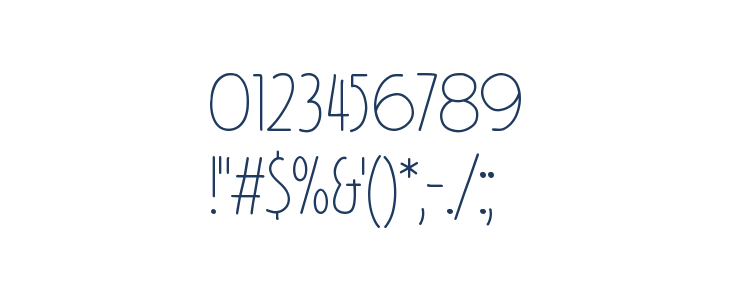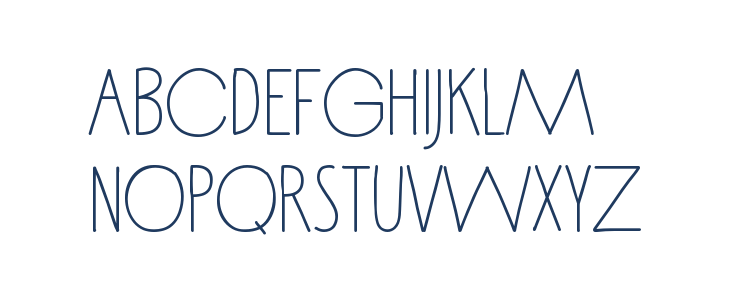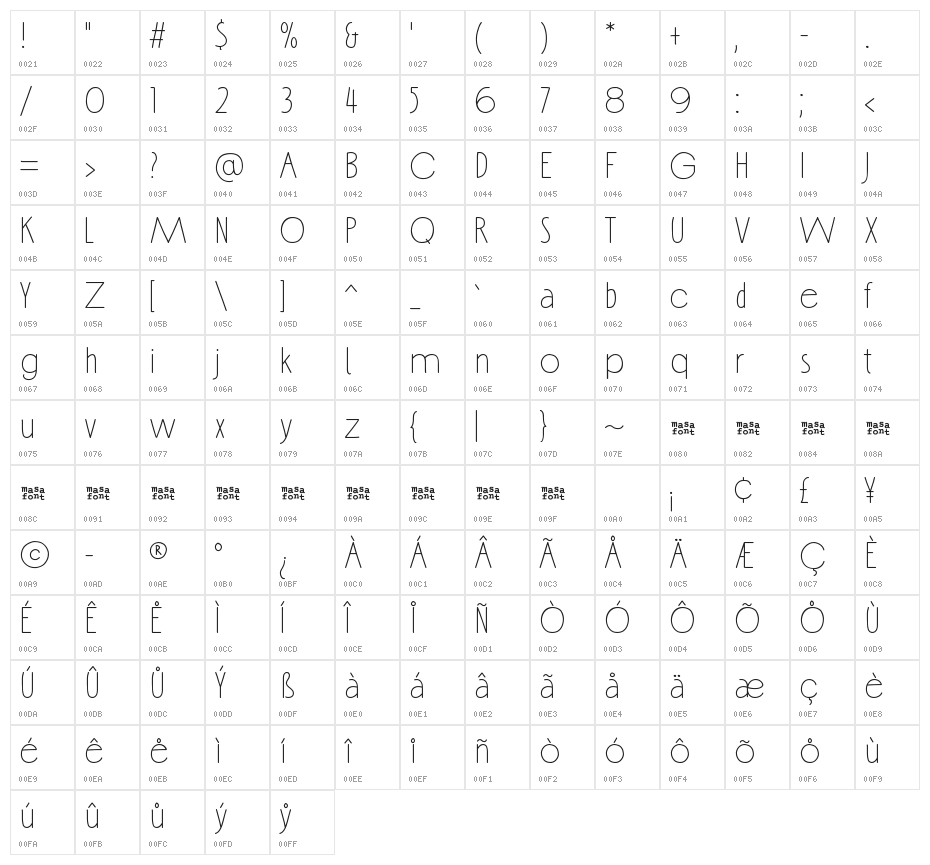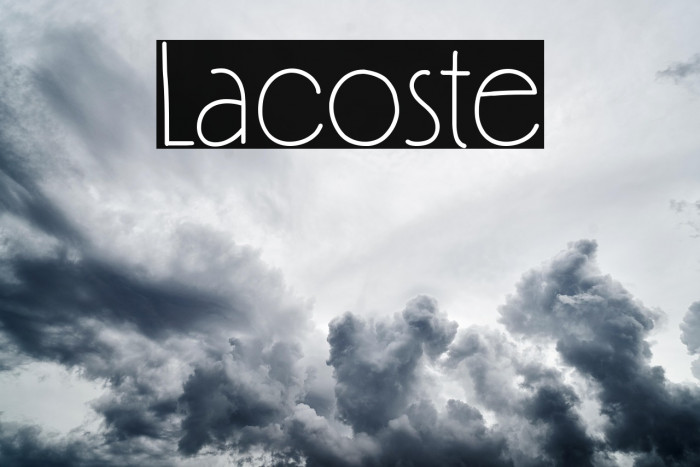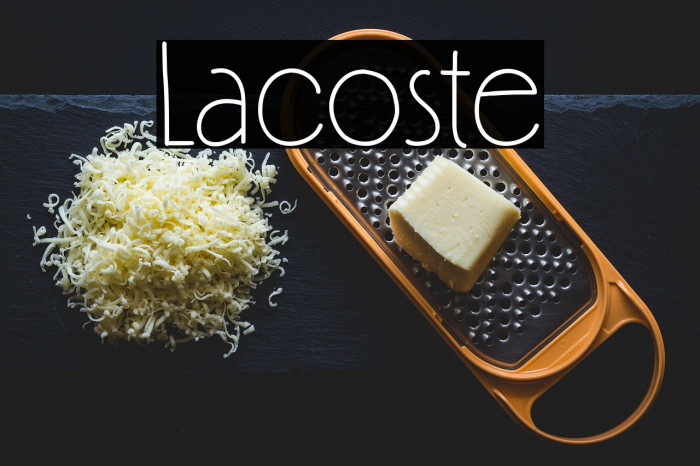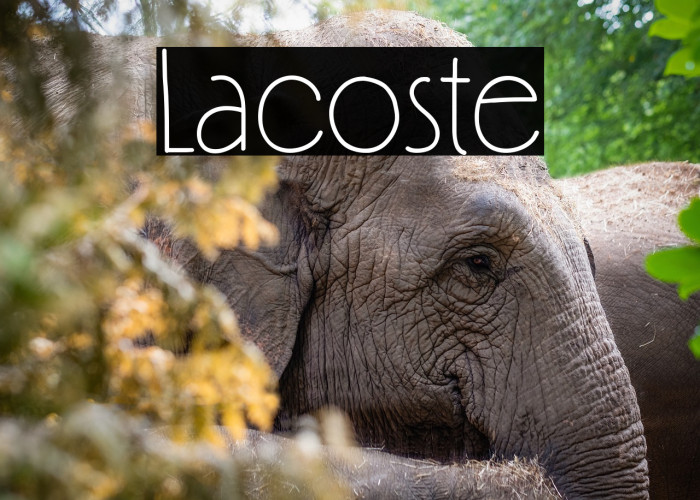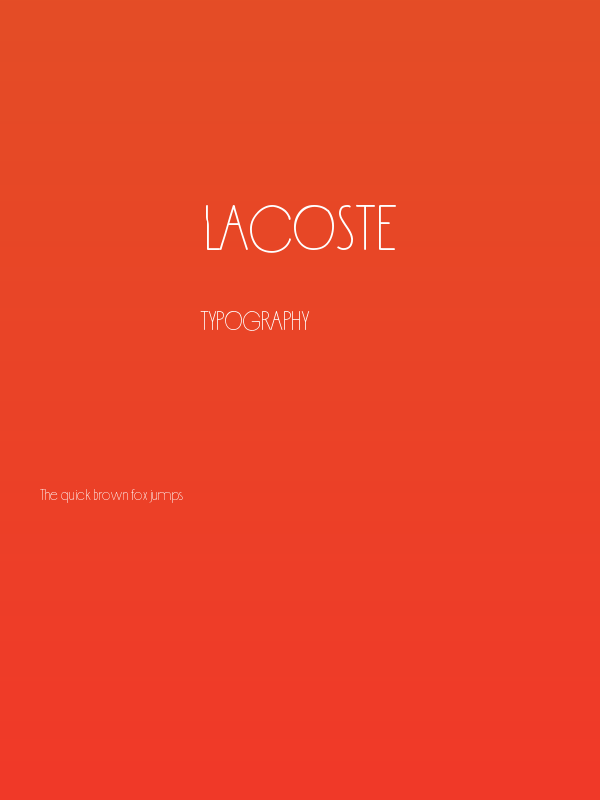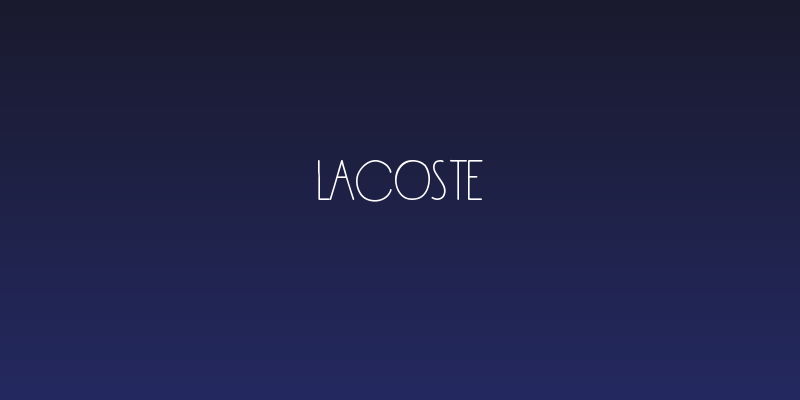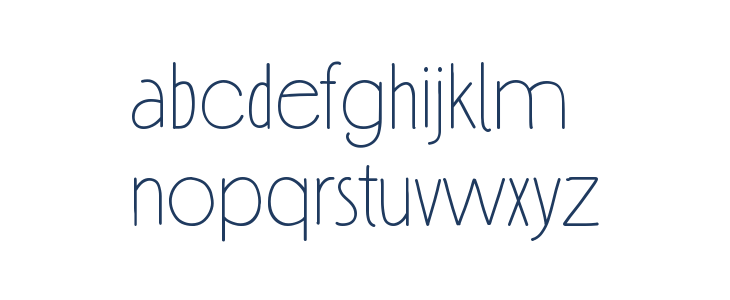
Lacoste Font
Lacoste Description
A geometric, monoline sans-serif typeface with tall, narrow letterforms and rounded shapes, featuring consistent stroke thickness and generous spacing between characters.
| Overall Style | Modern, Minimalist |
| Proposed Projects | Fashion branding, modern posters, minimalist packaging, editorial headlines. |